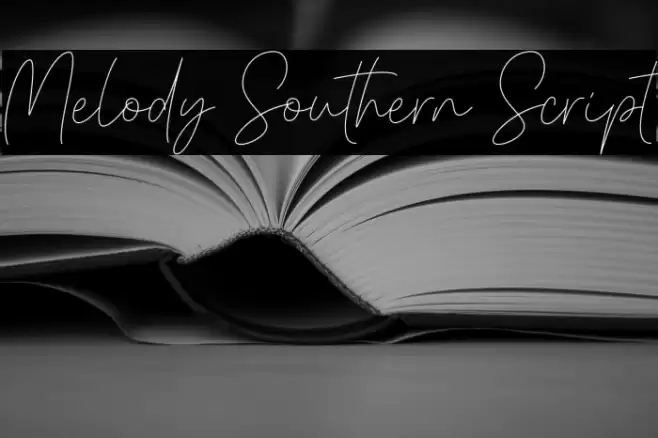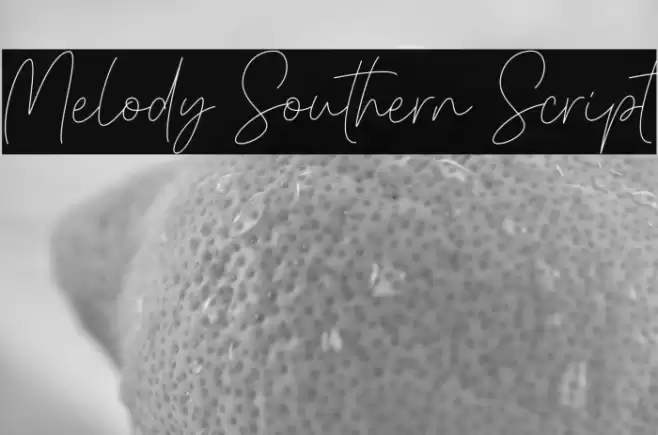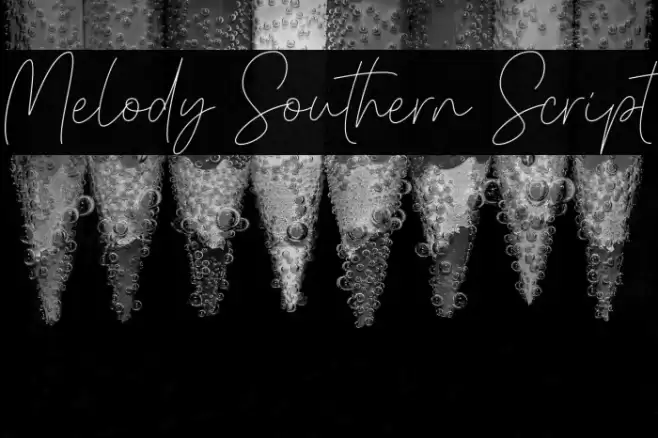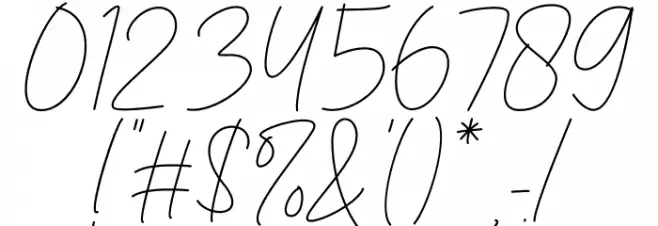
Melody Southern Script Font
Melody Southern Script Description
This font exudes a charming and elegant script style, characterized by its flowing, cursive letterforms that mimic natural handwriting. The uppercase letters are tall and slender, with graceful loops and curves that add a touch of sophistication. The lowercase letters maintain a consistent fluidity, connecting seamlessly to create a harmonious and continuous line of text. The numerals are stylishly crafted, matching the overall aesthetic with their smooth and rounded shapes. Special characters are thoughtfully designed, integrating seamlessly with the alphabet to maintain the font's cohesive look. The overall appearance is delicate yet confident, making it ideal for projects that require a personal and artistic touch.
A graceful and elegant script font with flowing, cursive letterforms from Regular fonts.
- Proposed Projects: Ideal for wedding invitations, greeting cards, branding, and personal stationery.
- Overall Style: Elegant, Artistic
- Use Case: Logos, Invitations, Personal stationery